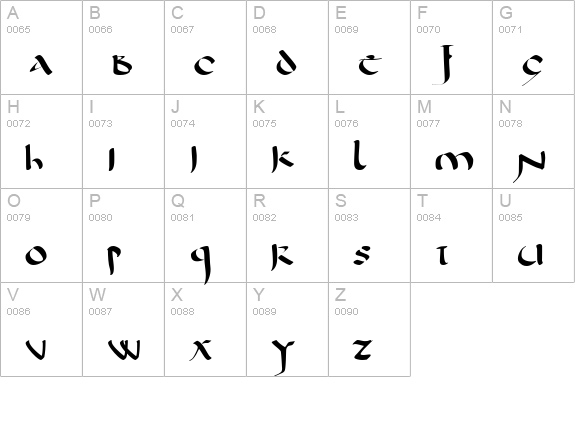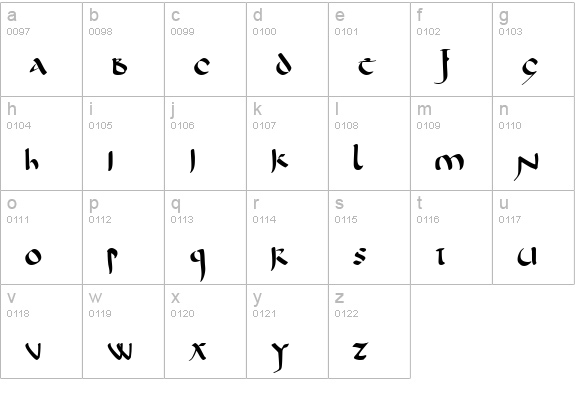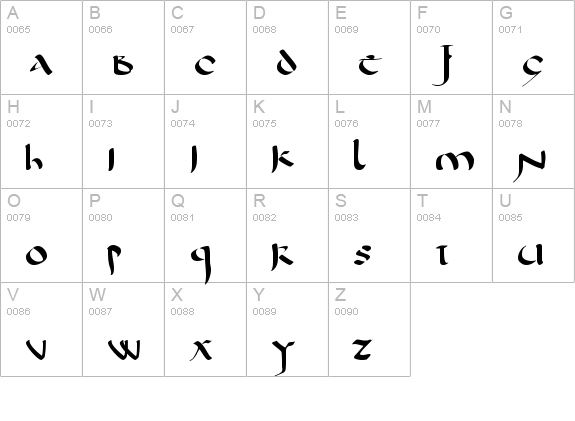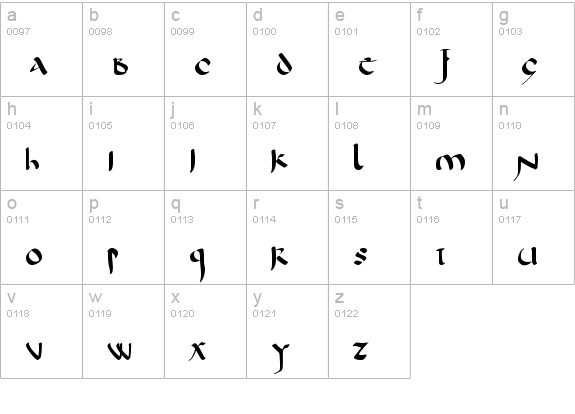
Corbei Uncial Font Details
Corbei Uncial font is a stunning display typeface that exudes elegance and classic charm. Its intricate details and graceful curves make it ideal for projects that require a touch of sophistication and timelessness. This font is inspired by the ancient script of the Uncial style, giving it a unique and artistic flair. Corbei Uncial font is perfect for creating invitations, wedding stationery, branding materials, and more. Its versatility allows it to be used for a wide range of design projects, adding a touch of refinement and character. The best part about Corbei Uncial font is that it is completely free to download at FontsMarket.com. This means you can easily access this beautiful typeface and incorporate it into your designs without any cost. Don't miss out on the opportunity to enhance your projects with the beauty and elegance of Corbei Uncial font. Download it today and elevate your designs to the next level.